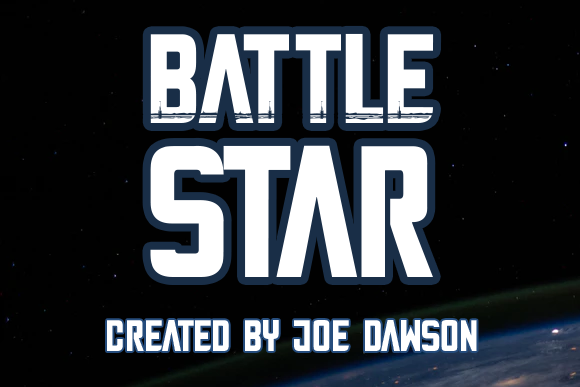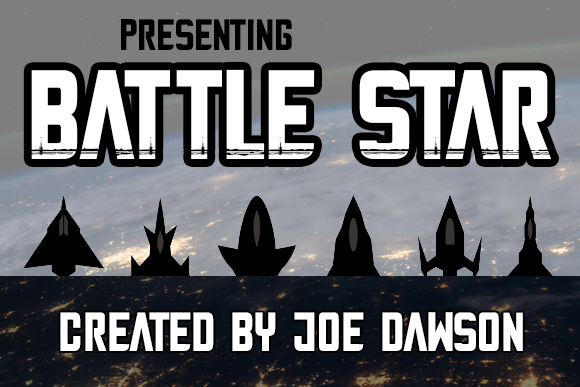
Introducing Battle Star Font: The Ultimate Sci-Fi Display Font for Futuristic Designs
In the realm of design, fonts play a pivotal role in bringing a project to life. Whether you’re crafting a logo, creating a poster, or designing a website, the right font can make all the difference. For those seeking a modern, sci-fi themed display font that captures the essence of the Mandalorian, look no further than Battle Star Font. Inspired by the rugged, futuristic aesthetic of the hit Disney+ series, Battle Star is the perfect addition to any designer’s toolkit.
What is Battle Star Font?
Battle Star Font is a contemporary, sci-fi themed display font designed to evoke the futuristic feel of the Mandalorian universe. With its strong, rugged lines and modern aesthetic, this font is ideal for creating eye-catching headlines, titles, and captions that demand attention. Whether you’re working on a project for a sci-fi movie, a tech startup, or a gaming company, Battle Star Font is sure to impress.
Key Features of Battle Star Font
- Modern Sci-Fi Aesthetic: Inspired by the Mandalorian, Battle Star Font embodies the futuristic, high-tech feel of the sci-fi universe.
- Display Font: Designed specifically for display purposes, Battle Star Font is perfect for headlines, titles, and captions that need to stand out.
- Rugged and Strong: With its bold lines and rugged texture, Battle Star Font exudes a sense of strength and resilience.
- Versatile: Suitable for a wide range of projects, from movie posters to website headers, Battle Star Font is a versatile addition to any designer’s arsenal.
Who Can Benefit from Battle Star Font?
Battle Star Font is a valuable resource for a variety of designers and crafters, including:
- Graphic Designers: Looking for a modern, sci-fi themed font to elevate their designs.
- Movie and TV Enthusiasts: Creating fan art, posters, or other projects inspired by their favorite sci-fi shows and movies.
- Web Designers: Seeking a bold, futuristic font for website headers, titles, and captions.
- Crafters and Makers: Working on DIY projects, such as custom signs, posters, or decorations with a sci-fi theme.
How to Use Battle Star Font in Your Projects
Incorporating Battle Star Font into your designs is easy. Here are a few tips to get you started:
- Pair with Contrasting Fonts: Combine Battle Star Font with simpler, sans-serif fonts to create visual interest and hierarchy.
- Experiment with Colors: Try pairing Battle Star Font with bold, bright colors to amplify its futuristic aesthetic.
- Play with Texture: Add depth to your design by combining Battle Star Font with textured backgrounds or overlays.
Battle Star Font is a powerful, modern sci-fi themed display font that’s perfect for designers and crafters seeking a futuristic look. Inspired by the Mandalorian, this font embodies the rugged, high-tech aesthetic of the sci-fi universe. With its versatility, strong lines, and bold texture, Battle Star Font is an excellent addition to any designer’s toolkit. Whether you’re working on a movie poster, website header, or DIY project, Battle Star Font is sure to bring your design to life.